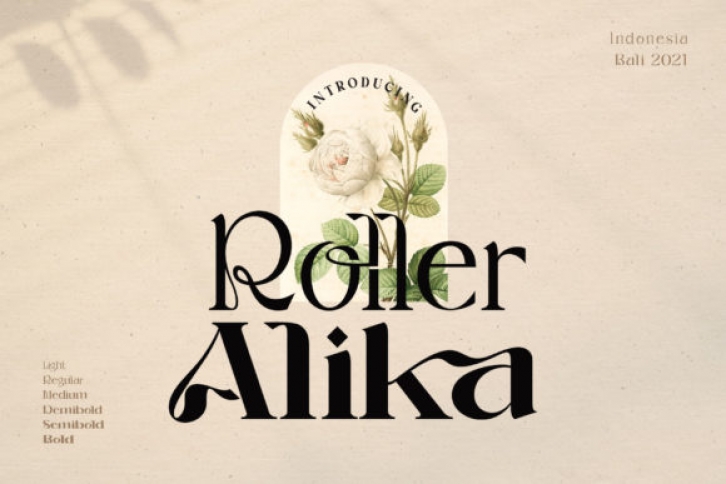
Roller Alika is a modern and stylish serif font. It has a classy and elegant look that can be used for logos, branding, invitations, stationery, wedding designs, social media posts, and much more!